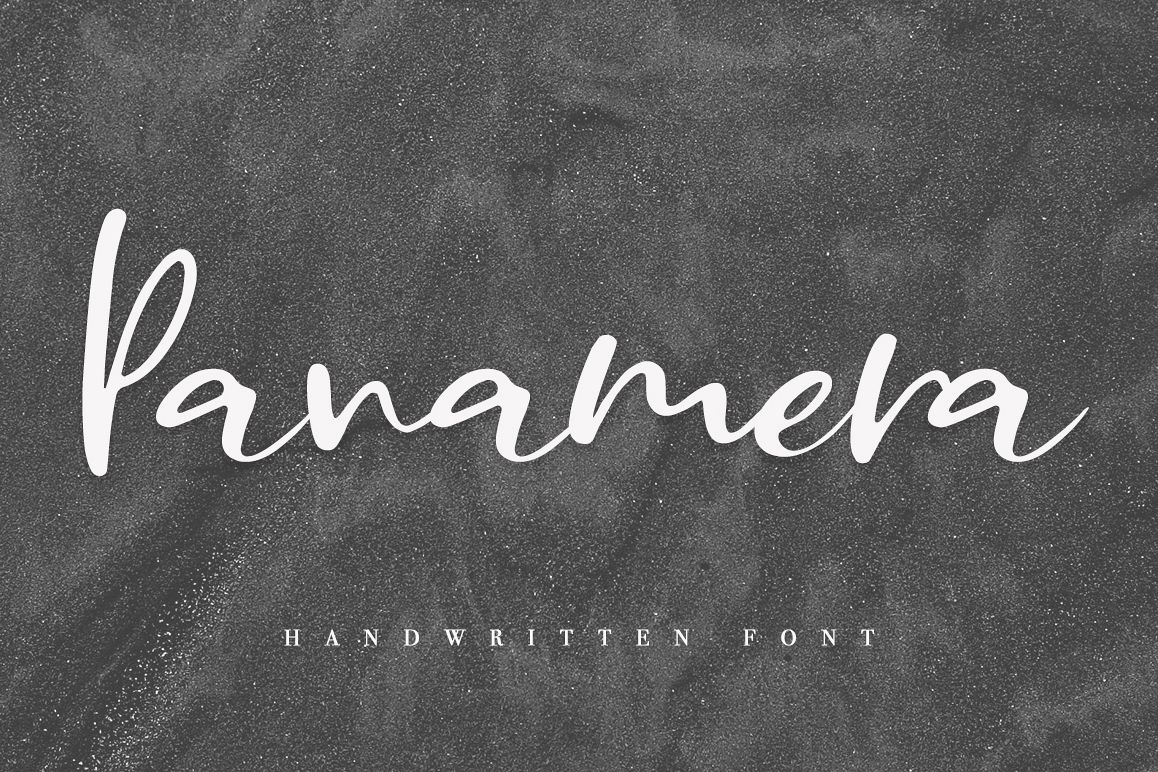
Panamera
This handwritten script has been attentively written, with gentle curves to produce a font thats completely distinctive and original. Perfect for adding a elegant and unique touch to your lettering projects and brandingAlso with their help, you can create a Wedding lettering or beautiful frame for your home. Or just use for your small business, book covers, stationery, marketing, magazines and more.